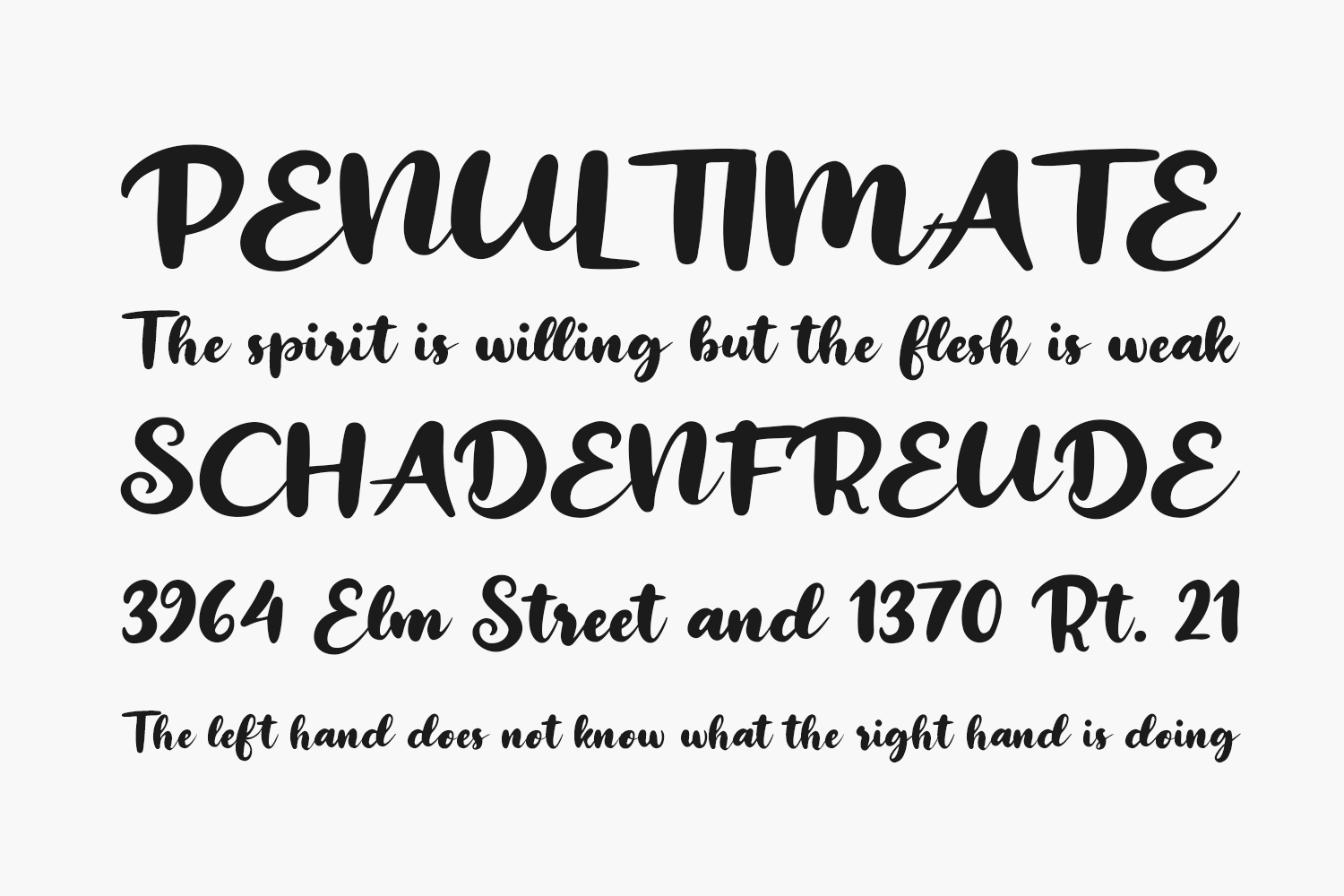
Discover Hontary Free Font, a captivatingly charming and exquisitely elegant handwritten font. Infuse your design projects with an authentic touch, elevating them to new heights of sophistication and allure. Download the font for free if you need it for personal use or purchase the full version for commercial use.
Designed by Akhmad Reza Fauzi